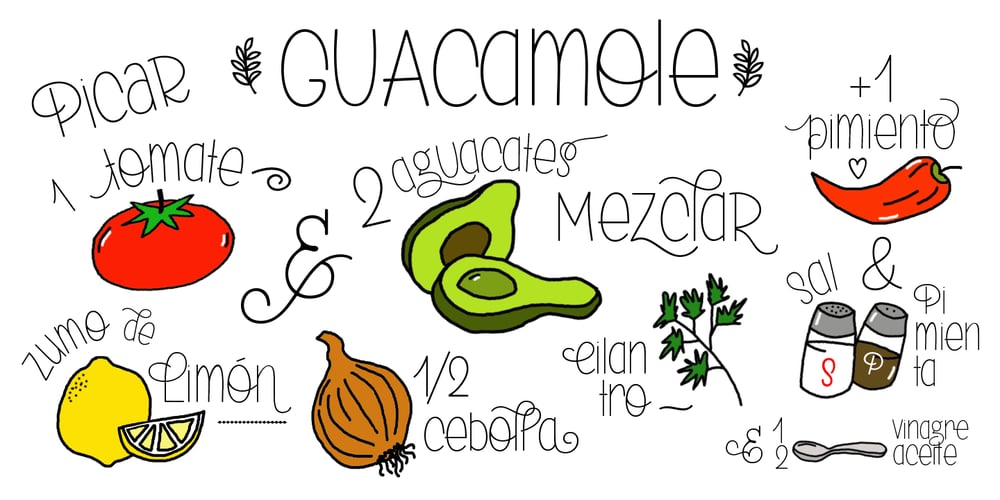
Magie Slim Font Family was designed by Carine de Wandeleer and published by Eurotypo. Magie Slim contains 1 styles and family package options. Magie Slim is a handwritten font with a strong informal and expressive character to use together with Magie. It has the peculiarity of being able to combine uppercase and lowercase letters in the same word or in capital letters. It has OpenType features such as stylistic and contextual alternates, swashes, ligatures, initial and terminal forms, up to seven stylistic sets per letter (in uppercase and lowercase). We also include catchwords and ornaments. Imagine the amount of combinations you might do giving your text freshness and naturalness without equal! Magie Slim has a Central European language support to fit your design. This font looks beautiful on wedding invitations, greeting cards, logos, posters, labels, t-shirt designs, logos, business cards and is perfect for use in ink or watercolor works, fashion, magazines, packaging and food menus, children’s books and whatever your imagination contains! Magie Slim was created to give a more youthful, expressive and casual look to your project!